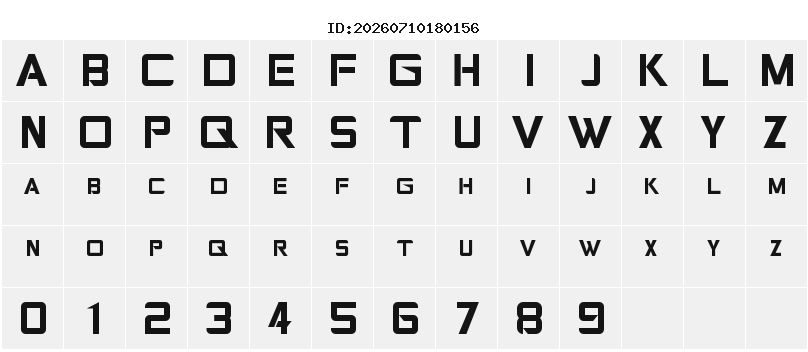
Gears of Peace Preview
• Font Name: Gears of Peace
• Full Font Name: Gears of Peace
• Version: Version 1.00 December 29, 2006, initial release
About Gears of Peace.ttf
Gears of Peace.ttf is a modern, elegant sans-serif font designed for ultimate readability and visual harmony. Perfect for branding, headlines, web design, and print materials.